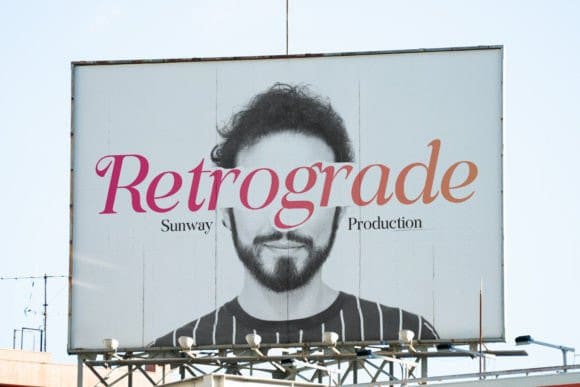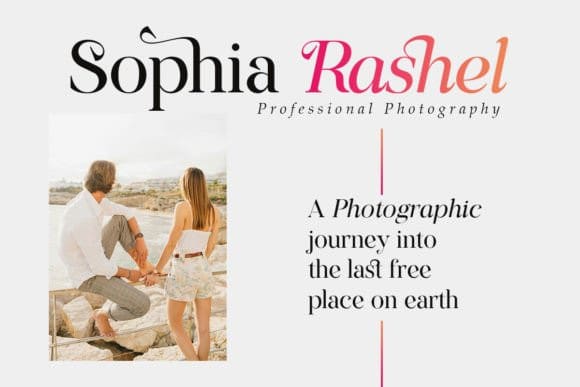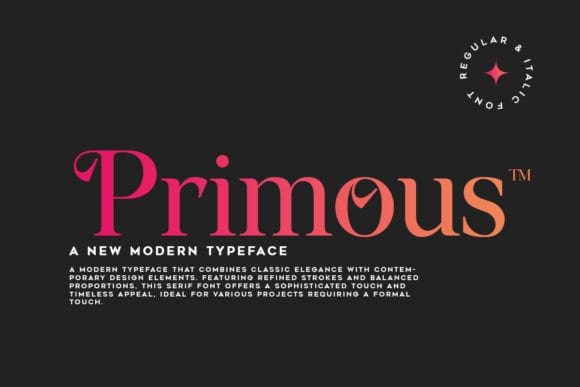
Primous Font
Primous Font is a modern vintage serif font packaged in a modern and classy style, complete with your OpenType feature access to access a large selection of alternative fonts and bindings, the choice of fonts you like from large and small font variations for a luxurious and elegant look.